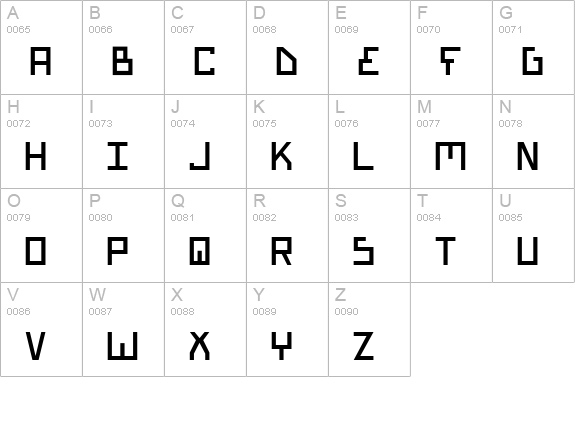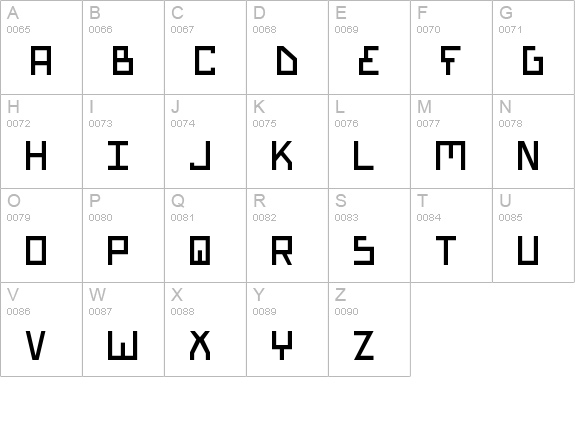
Introducing the captivating Bionic Type font, a futuristic and innovative typeface that seamlessly blends modern aesthetics with a touch of technology. With its sleek lines and sharp edges, this font exudes a sense of power and sophistication, making it perfect for a wide range of design projects. The Bionic Type font is not only visually striking but also highly versatile, making it ideal for branding, logo design, web design, posters, and much more. Its clean and bold letterforms command attention and leave a lasting impression on viewers. What's even better is that the Bionic Type font is available for free download at FontsMarket.com. Now you can elevate your designs without breaking the bank, thanks to this exceptional font that offers both style and substance. Don't miss out on the opportunity to add a touch of modernity and sophistication to your projects with the Bionic Type font. Download it today and let your creativity soar to new heights!